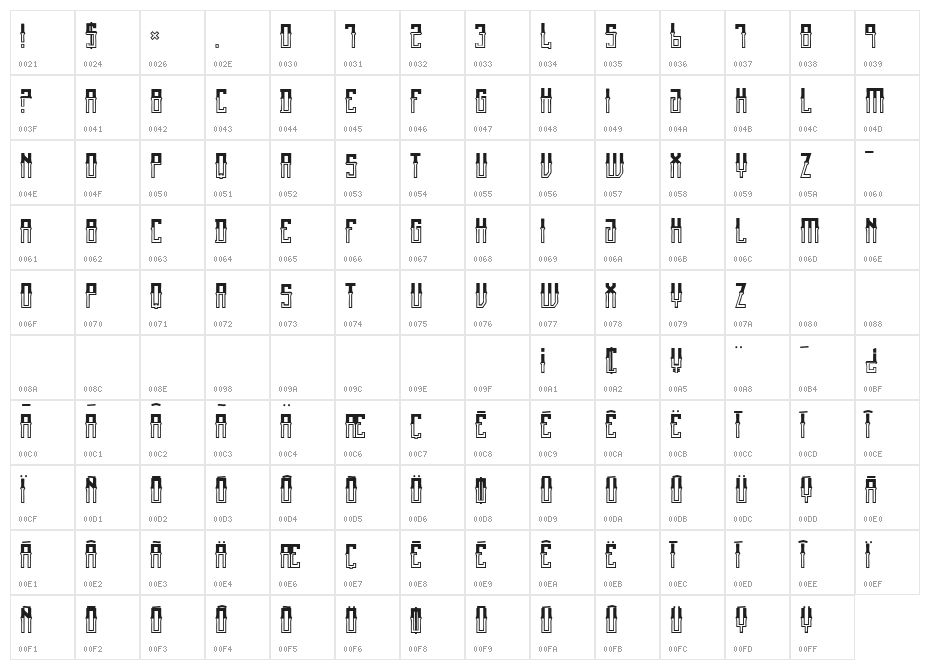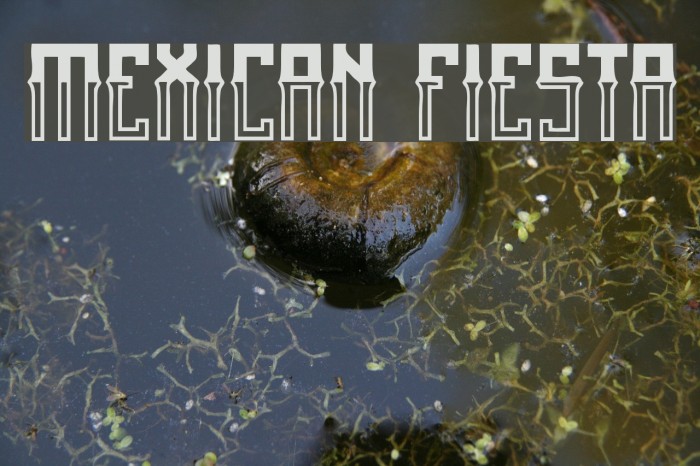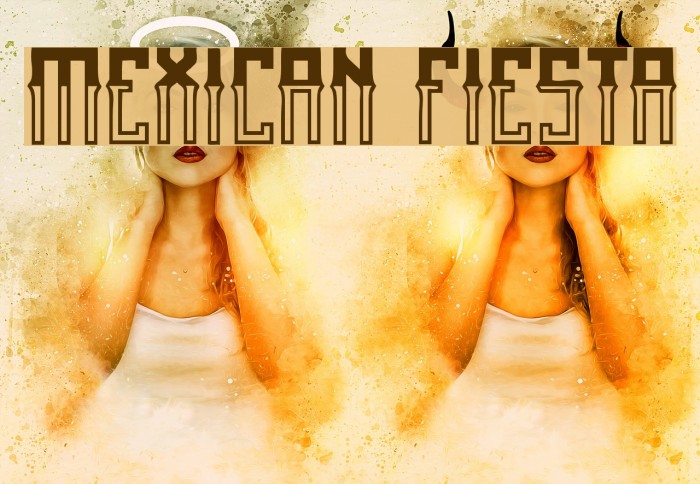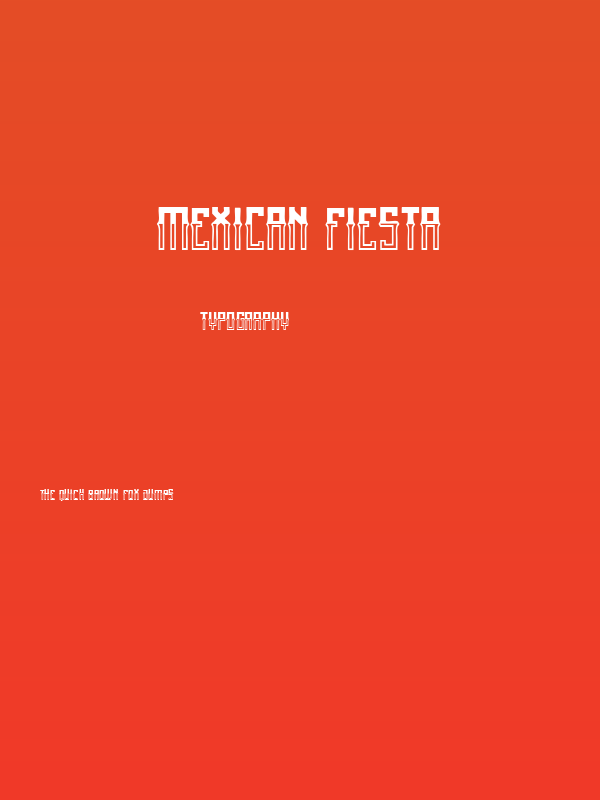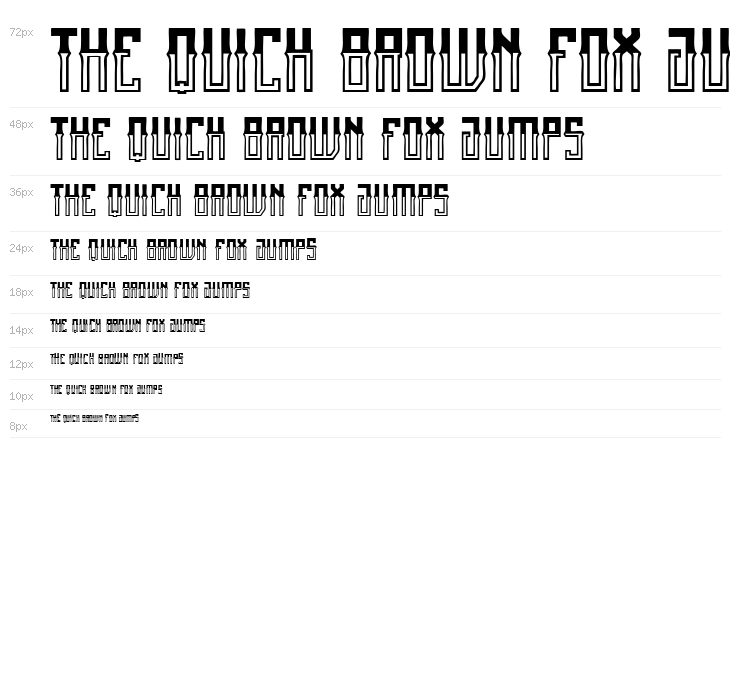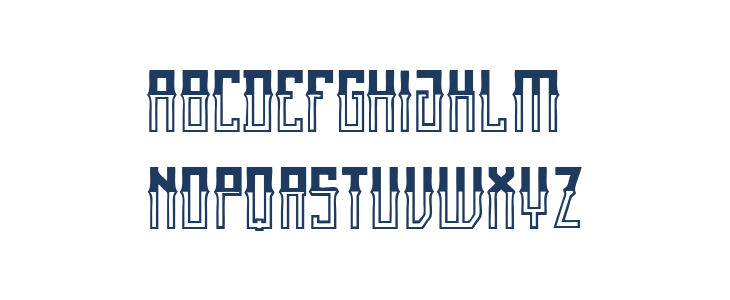
Mexican fiesta Font
Mexican fiesta Description
This font features a bold and decorative style with a distinct geometric influence. The characters are outlined with a thick border, giving them a strong presence. The design incorporates sharp angles and straight lines, creating a modern yet playful aesthetic. The uppercase and lowercase letters maintain a consistent height, while the numbers and special characters follow the same stylistic approach. This font is ideal for projects that require a festive and eye-catching look, such as event posters, invitations, or branding for themed parties.
| Proposed Projects | Ideal for event posters, themed invitations, and festive branding projects. |